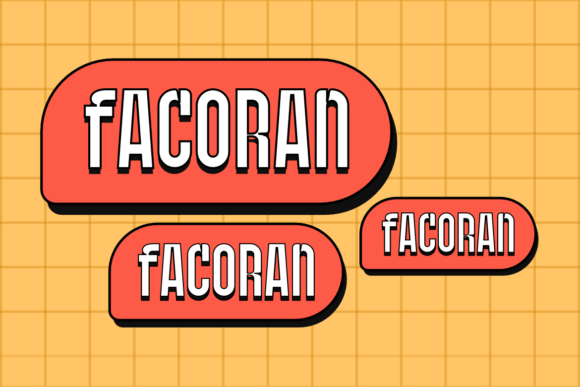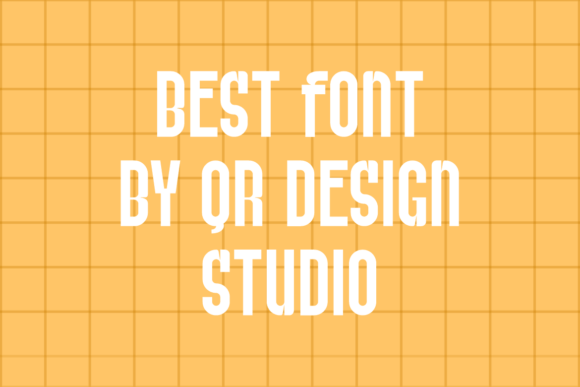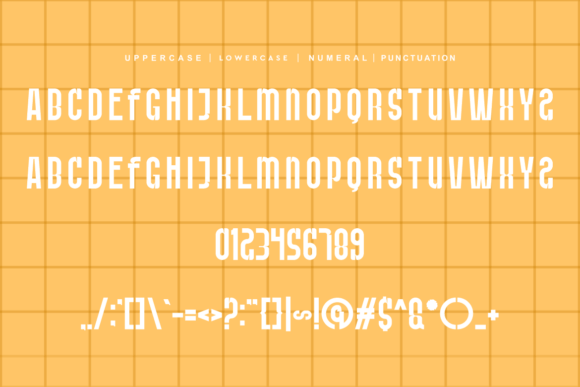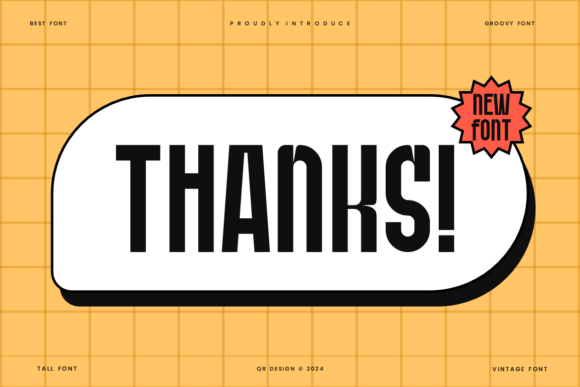
Discover the Charm of Facoran Font: A Sweet and Friendly Sans Serif Delight
Are you a designer or crafter on the hunt for a font that can add a touch of warmth and personality to your projects? Look no further than Facoran Font, a sweet and friendly sans serif font that’s as versatile as it is charming. With its natural and unique style, Facoran Font is incredibly fitting to a large pool of designs, making it the perfect addition to your typography toolkit.
The Beauty of Sans Serif Fonts
Sans serif fonts have long been a staple in the world of design, and for good reason. Their clean lines, simple shapes, and lack of decorative flourishes make them highly legible and versatile. Sans serif fonts are perfect for a wide range of applications, from digital designs to print materials, and can add a touch of modernity and sophistication to any project.
Facoran Font takes the best of sans serif fonts to the next level with its unique and friendly style. Its rounded edges and smooth curves give it a soft, approachable feel that’s perfect for designs that need a touch of warmth and personality.
What Makes Facoran Font So Special?
So, what sets Facoran Font apart from other sans serif fonts on the market? Here are just a few reasons why designers and crafters are falling in love with this charming font:
- Unique Style: Facoran Font has a natural and unique style that’s unlike any other sans serif font out there. Its subtle quirks and charming details make it perfect for designs that need a touch of personality.
- Highly Legible: Despite its unique style, Facoran Font is incredibly legible, making it perfect for both digital and print applications.
- Versatile: Facoran Font is incredibly versatile, and can be used in a wide range of designs, from logos and branding to packaging and more.
- Easy to Use: Facoran Font is easy to use and pairs perfectly with a wide range of other fonts, making it a great addition to any design project.
How to Use Facoran Font in Your Designs
So, how can you use Facoran Font in your designs? The possibilities are endless! Here are a few ideas to get you started:
- Logos and Branding: Use Facoran Font to create a unique and memorable logo or brand identity that’s sure to stand out.
- Packaging: Add a touch of warmth and personality to your packaging designs with Facoran Font.
- Digital Designs: Use Facoran Font in your digital designs, such as social media graphics, website headers, and more.
- Print Materials: Facoran Font is perfect for print materials, such as business cards, brochures, and more.
Tips and Tricks for Getting the Most Out of Facoran Font
Here are a few tips and tricks for getting the most out of Facoran Font:
- Experiment with Different Sizes: Facoran Font looks great in a wide range of sizes, from small and delicate to large and bold.
- Pair it with Other Fonts: Facoran Font pairs perfectly with a wide range of other fonts, so don’t be afraid to experiment and find the perfect combination for your design.
- Use it in Combination with Images: Facoran Font looks great in combination with images, so consider using it to add a touch of personality to your design.
In conclusion, Facoran Font is a sweet and friendly sans serif font that’s perfect for designers and crafters who want to add a touch of warmth and personality to their projects. With its unique style, high legibility, and versatility, Facoran Font is incredibly fitting to a large pool of designs. So why wait? Download Facoran Font today and see for yourself why it’s quickly becoming a favorite among designers and crafters!